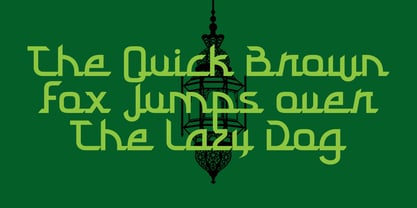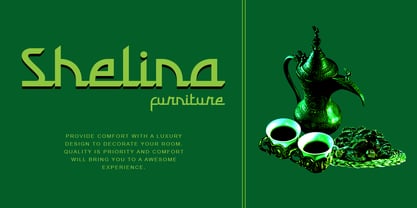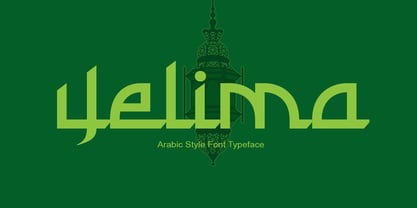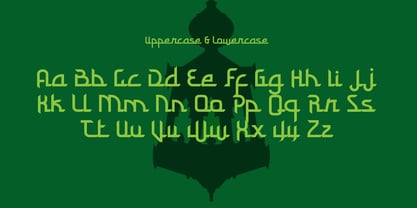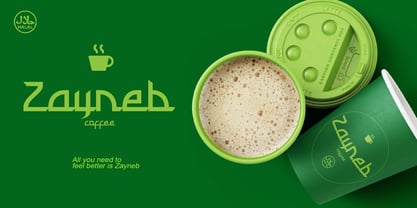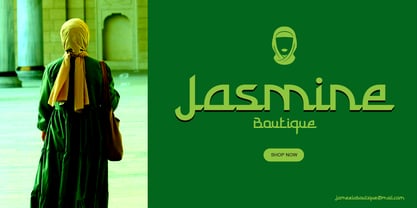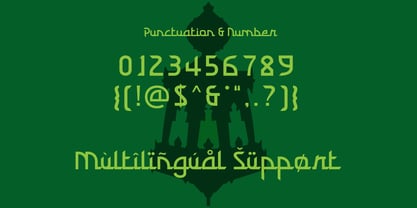
Yelima
by Ceeskiiw
The Yelima Font Family was designed by Cees Kiiw and published by Ceeskiiw. Yelima contains 1 styles. More about this family
A decorative fantasy display font inspired by Islamic architecture and Middle Eastern ornamentation, featuring geometric letterforms, pointed terminals, and a mystical royal aesthetic ideal for titles, branding, games, and cultural designs.
This font is a decorative fantasy display typeface inspired by Middle Eastern, Persian, Arabic, and Islamic architectural aesthetics. The letterforms feature angular geometric construction, pointed terminals, and ornamental cuts that evoke mosque domes, minarets, and traditional calligraphic influences while remaining fully Latin-based.
Designers: Cees Kiiw
Foundry: Ceeskiiw
Yelima